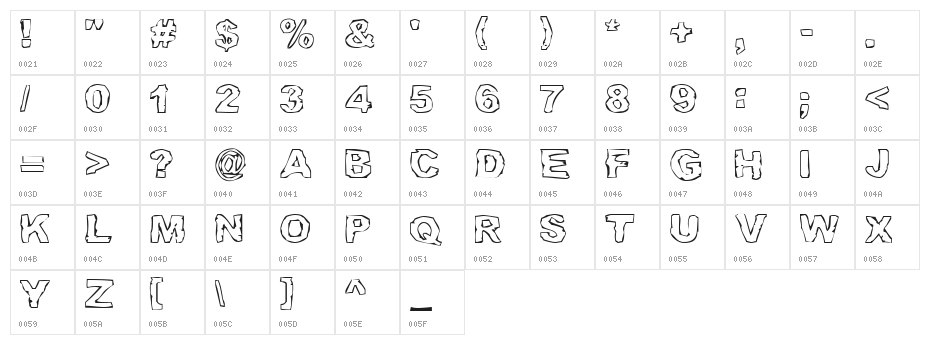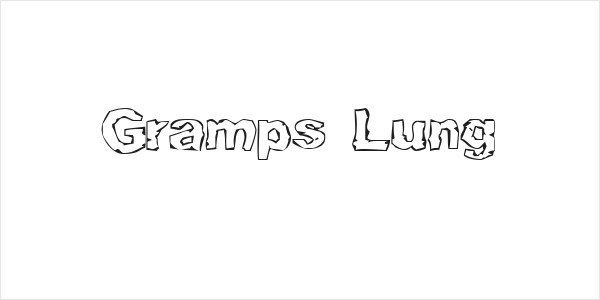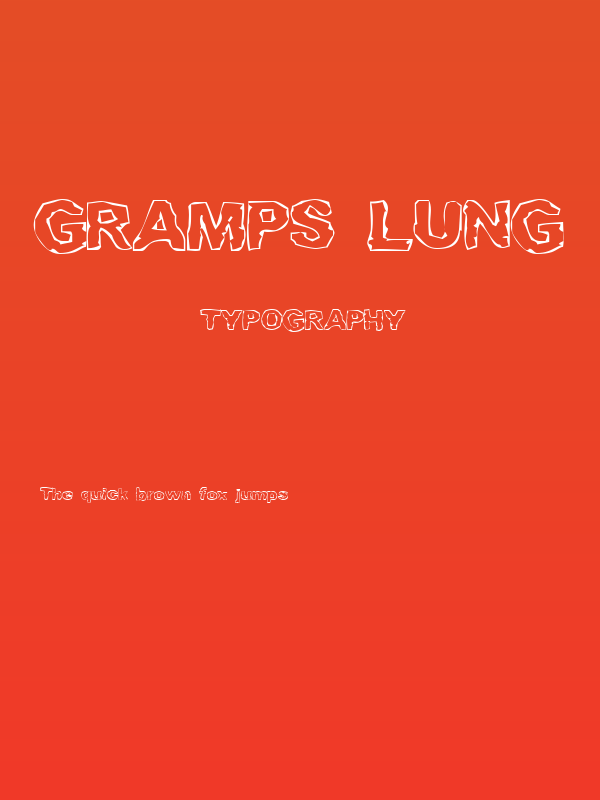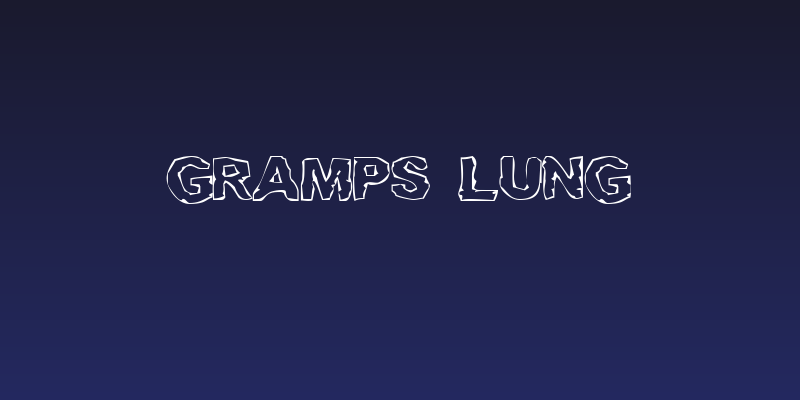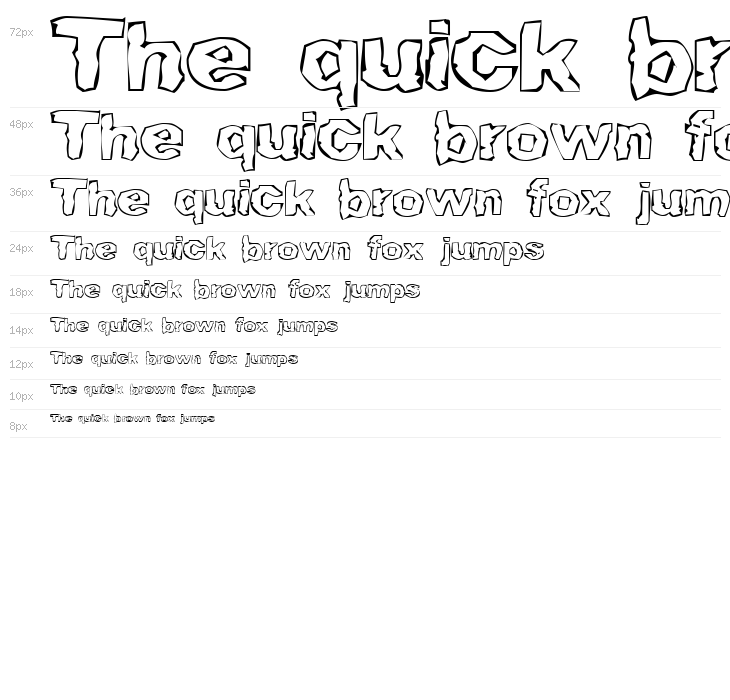
Gramps Lung Font
Gramps Lung Description
This font features a bold, hand-drawn style with irregular, jagged edges that give it a playful and dynamic appearance. The characters are outlined with a thick black line, creating a strong contrast against the white interior. The uppercase and lowercase letters maintain a consistent style, with a slightly exaggerated and whimsical form. Numbers and special characters follow the same design, ensuring uniformity across all glyphs. This font's unique and artistic look makes it ideal for projects that require a creative and informal touch.
| Overall Style | Playful, Artistic |
| Use Case | Headlines, Posters, Creative Branding |
| Proposed Projects | Ideal for comic books, children's books, posters, and creative branding. |